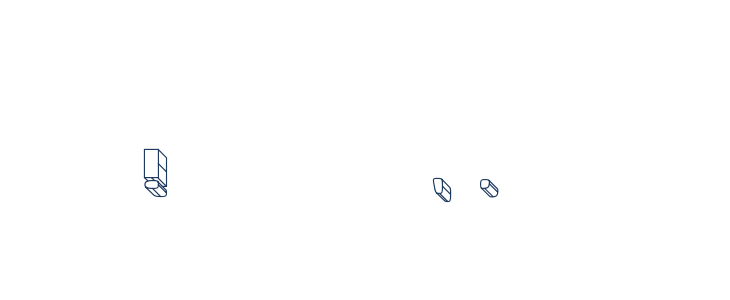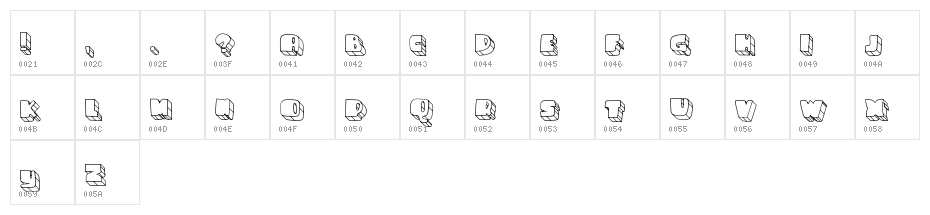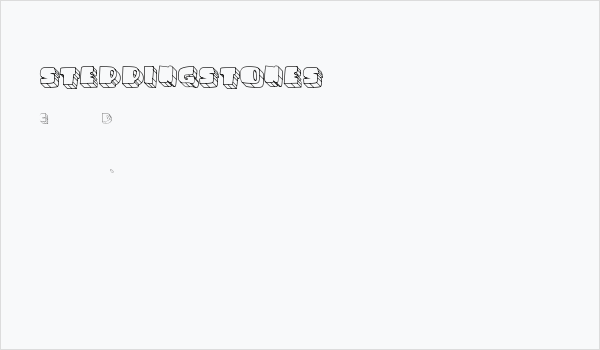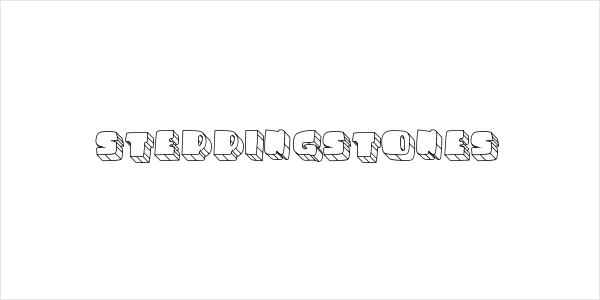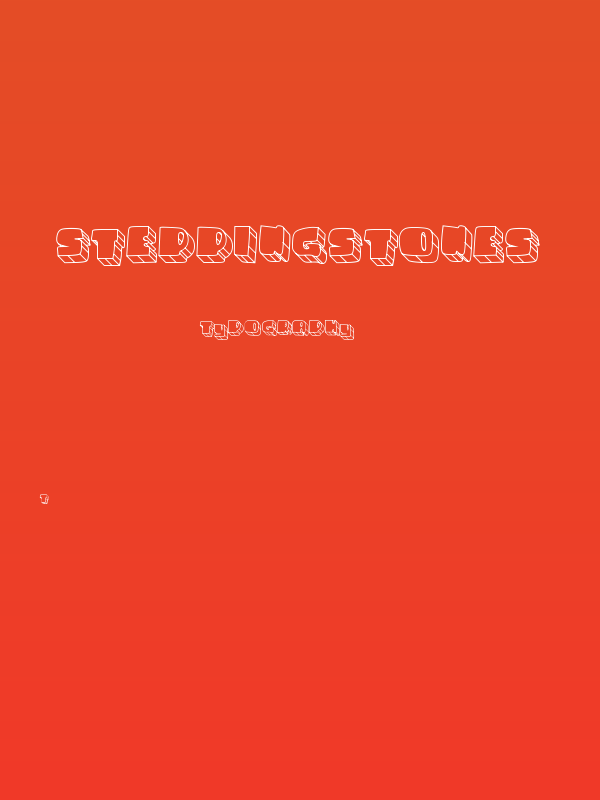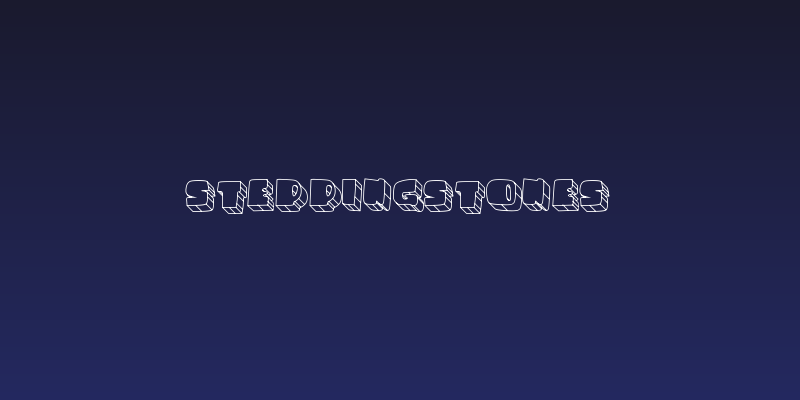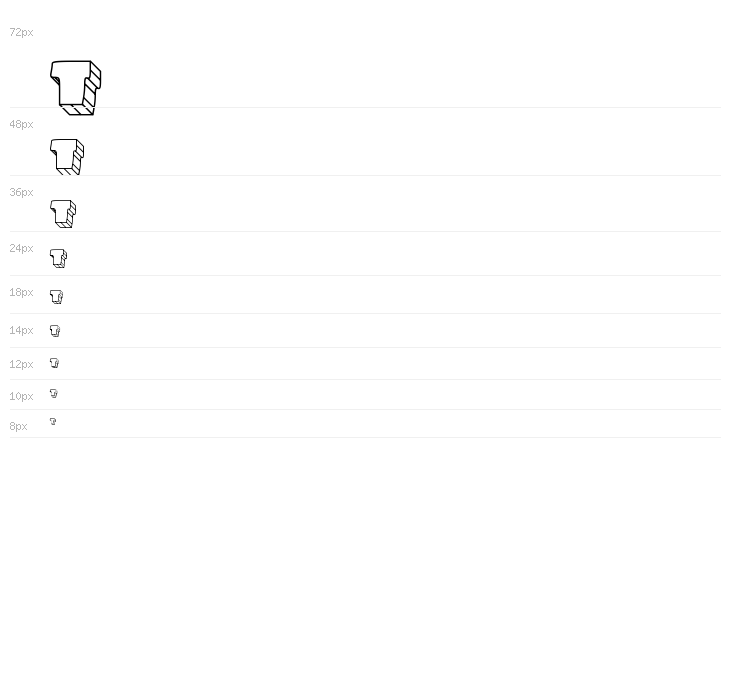
STEPPINGSTONES Font
STEPPINGSTONES Description
This font features a bold, three-dimensional block style with a hollow interior, giving it a playful and eye-catching appearance. The letters are uppercase and have a consistent geometric form, with sharp angles and clean lines that create a sense of depth and dimension. The outline-only design adds a unique touch, making it stand out in various design contexts. The absence of lowercase letters and numbers suggests a focus on decorative use, ideal for making a statement in headlines or titles. The overall look is modern and dynamic, suitable for projects that require a bold and impactful visual element.
| Proposed Projects | Ideal for posters, logos, headlines, and any design needing a bold, eye-catching font. |